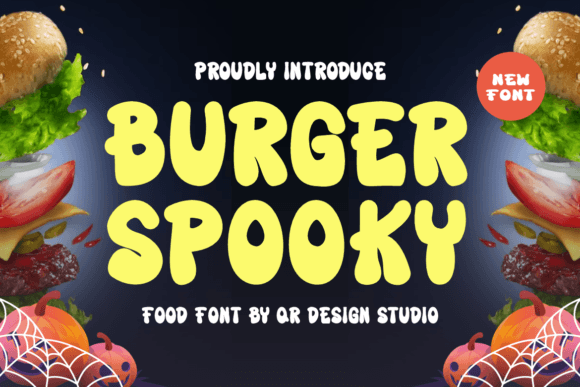
Introducing Burger Spooky Font – a delightful and playful display font that adds a dash of whimsy and charm to your creative projects.
Burger Spooky is a feast for the eyes, meticulously crafted by the talented qrdesignstd. Its quirky and lighthearted design makes it the perfect choice for adding a touch of fun and personality to your web designs, posters, flyers, social media posts, and more.
With Burger Spooky, you'll unleash your creativity and captivate your audience with its unique and eye-catching style. This font is not just a collection of letters and symbols; it's an expression of joy, laughter, and imagination.
The characters of Burger Spooky dance and play across the page, inviting you to embark on a journey of visual delight. Its playful curves and cheerful lines create a sense of warmth and positivity that resonates with viewers of all ages.
Whether you're designing a children's book, creating a playful logo, or simply adding a touch of whimsy to your branding, Burger Spooky is the perfect font to bring your ideas to life. Its versatility knows no bounds, making it a must-have in the toolkit of any creative professional or design enthusiast.
In the realm of web design, Burger Spooky reigns supreme as the ultimate font for capturing attention and creating a lasting impression. Its bold and quirky personality shines through, making it ideal for headlines, titles, and call-to-action buttons that demand attention.
So, if you're ready to add a sprinkle of fun and a dash of delight to your creative projects, embrace the magic of Burger Spooky Font today. Step into a world where imagination knows no bounds, where every letter tells a story, and every design is a celebration of joy.